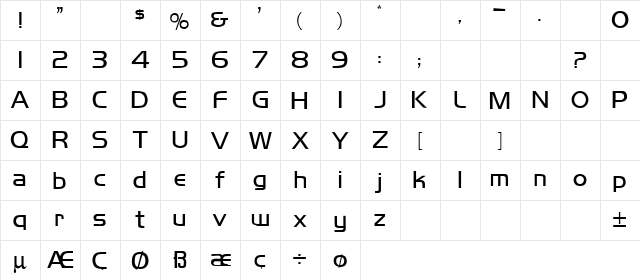
Bad Times 1 Regular
Design Context for Bad Times 1 Typeface
Bad Times 1 takes a measured approach to typography — its balanced proportions and neutral character make it a reliable workhorse for both digital and print work.
Pro Tip: Use Bad Times 1 in both headline and body roles to test its range before committing to a single application.